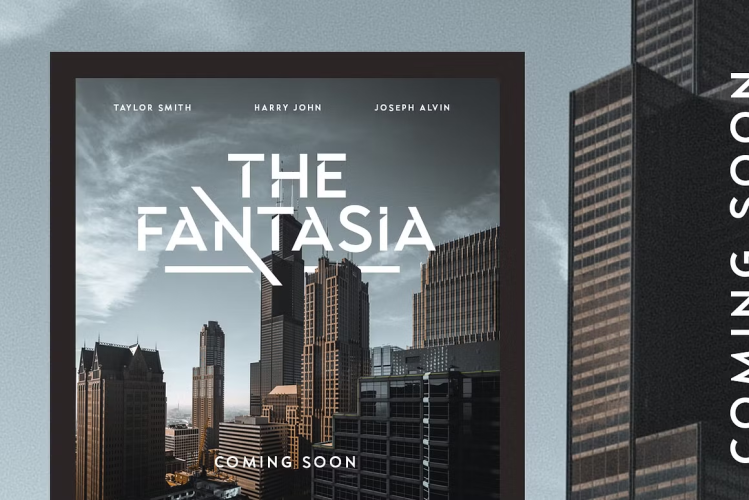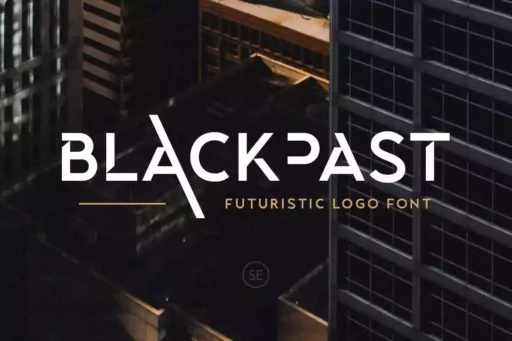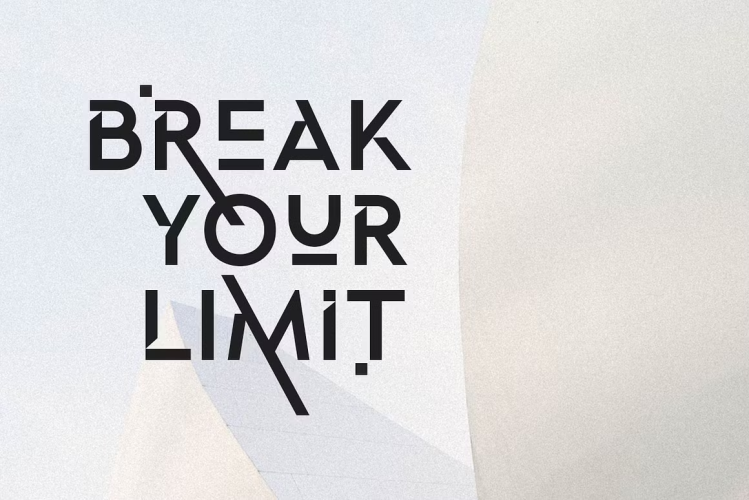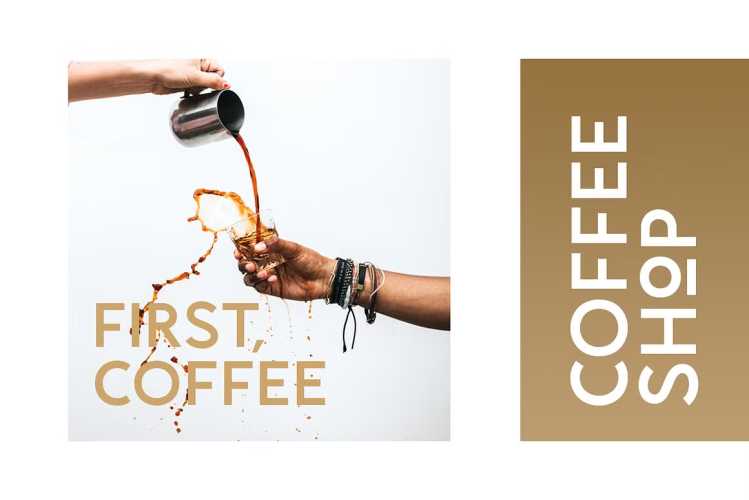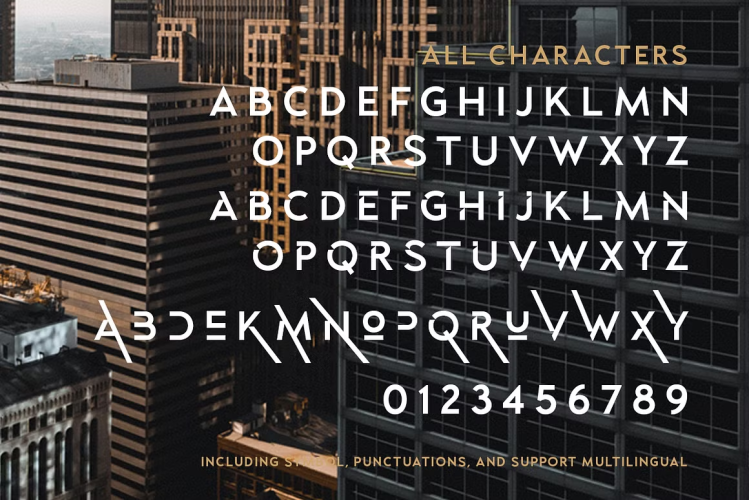
Blackpast Font
Blackpast is a modern futuristic logo sans font. It is trendy and creative, giving your designs a modern and futuristic feel. Especially with its exclusive lowercase alphabet, Blackpast is a unique font that can make any project modern and chic. It’s a font that can be used for any creative project, and you can use it to design logos, branding materials, or other things.
A well-known advantage of Blackpast is that it enhances readability and data visualization by automatically mixing uppercase and lowercase letters. Such a combination helps develop logos and typography that are both visually attractive and highly readable, which is vital in any successful design communication.
However, that is not all—Blackpast also provides special alternatives, allowing you to put some special touches on your designs and make them more interesting. These unusual alternatives give you the opportunity to use diverse styles and finishes to bring your designs to life and make them even more individual. Whether you are going for a plain and minimal style or a bright and dynamic look, Blackpast will meet your needs.
It is a multifaceted design tool that helps you deliver impactful and visually stunning phrases. This font, with its sci-fi look, mixed upper- and lowercase letters, and many alternates, will help you add even more dimension to your projects.
Where Blackpast Font works best
Blackpast Font is built for size: event posters, hero headlines and billboard-style layouts.
High contrast display type like Blackpast Font reads instantly in thumbnails and motion graphics.
What is Blackpast Font good for?
Blackpast Font is a Display Fonts typeface tagged Branding, Creative, Display, Display Fonts. It works well for headlines, logos, posters, social media graphics and branding projects that need a distinctive display fonts look.